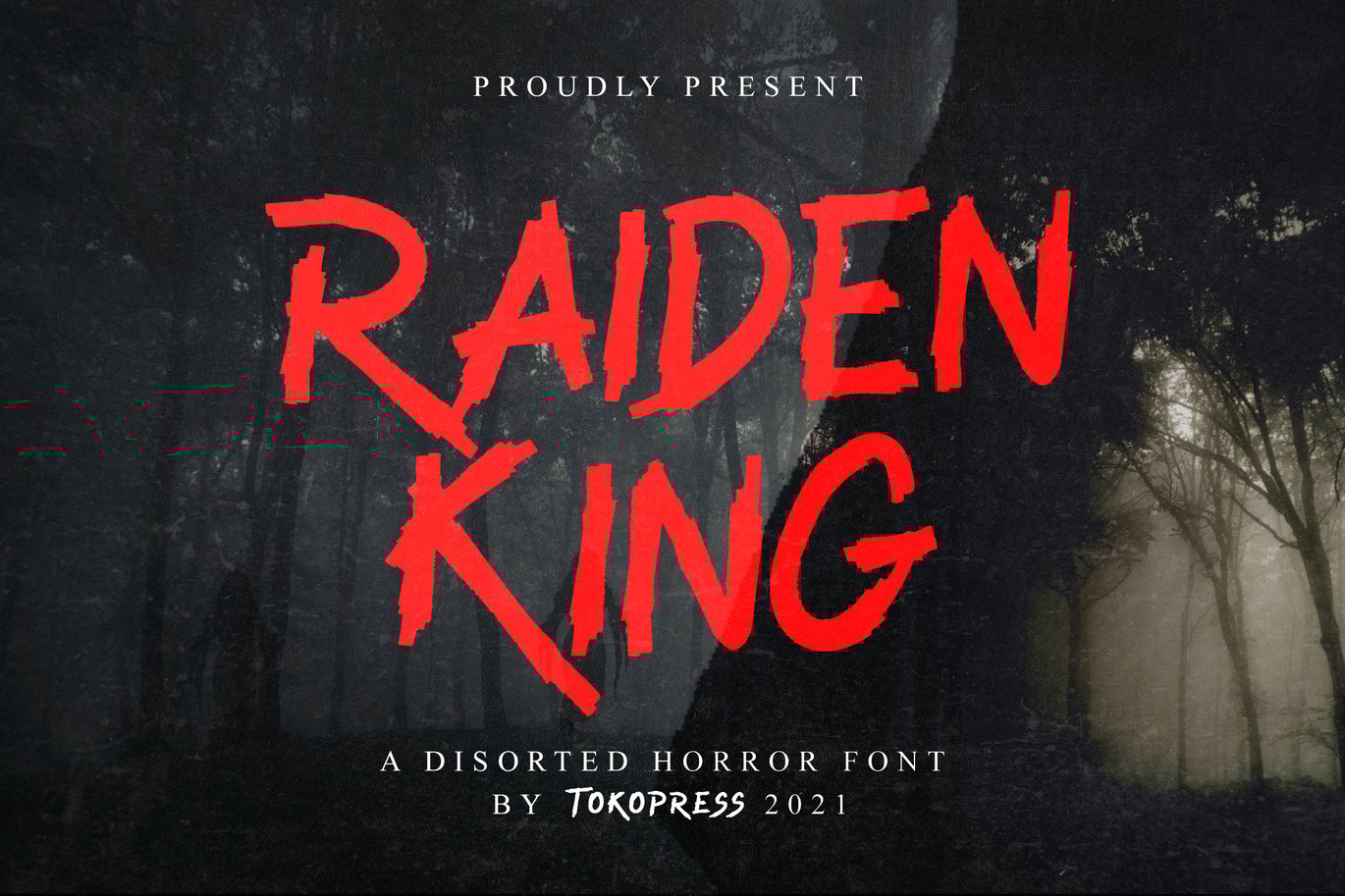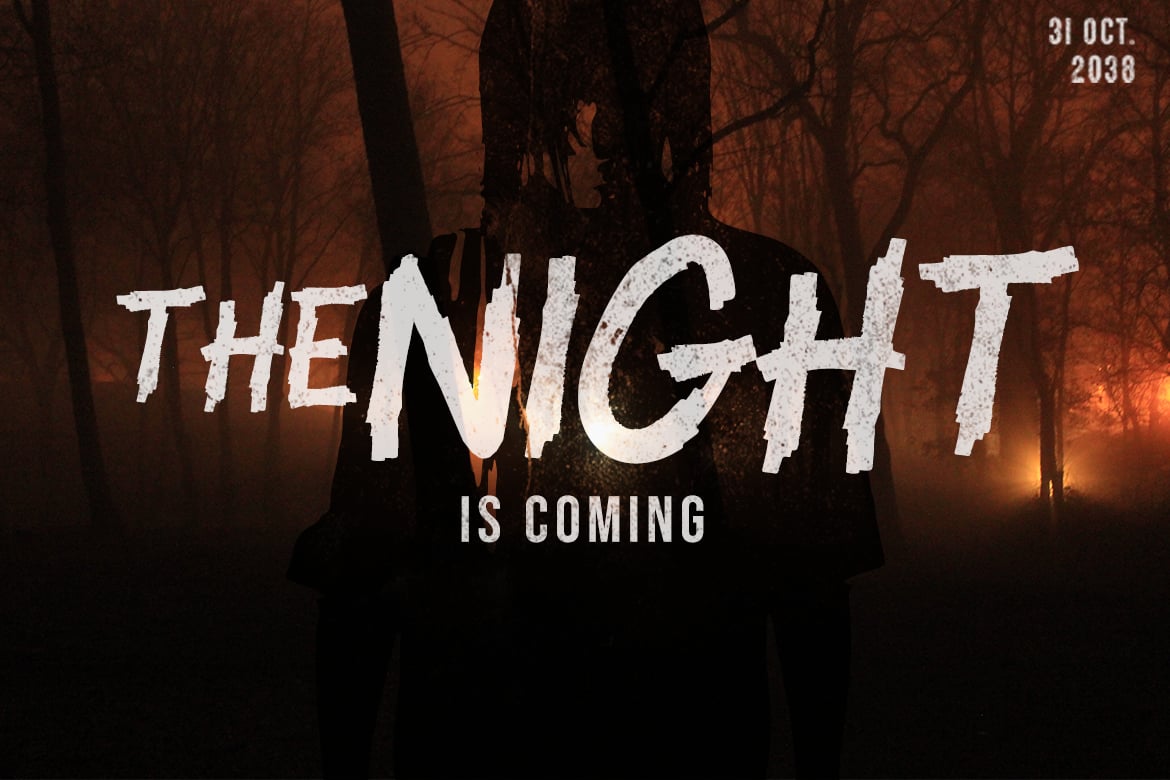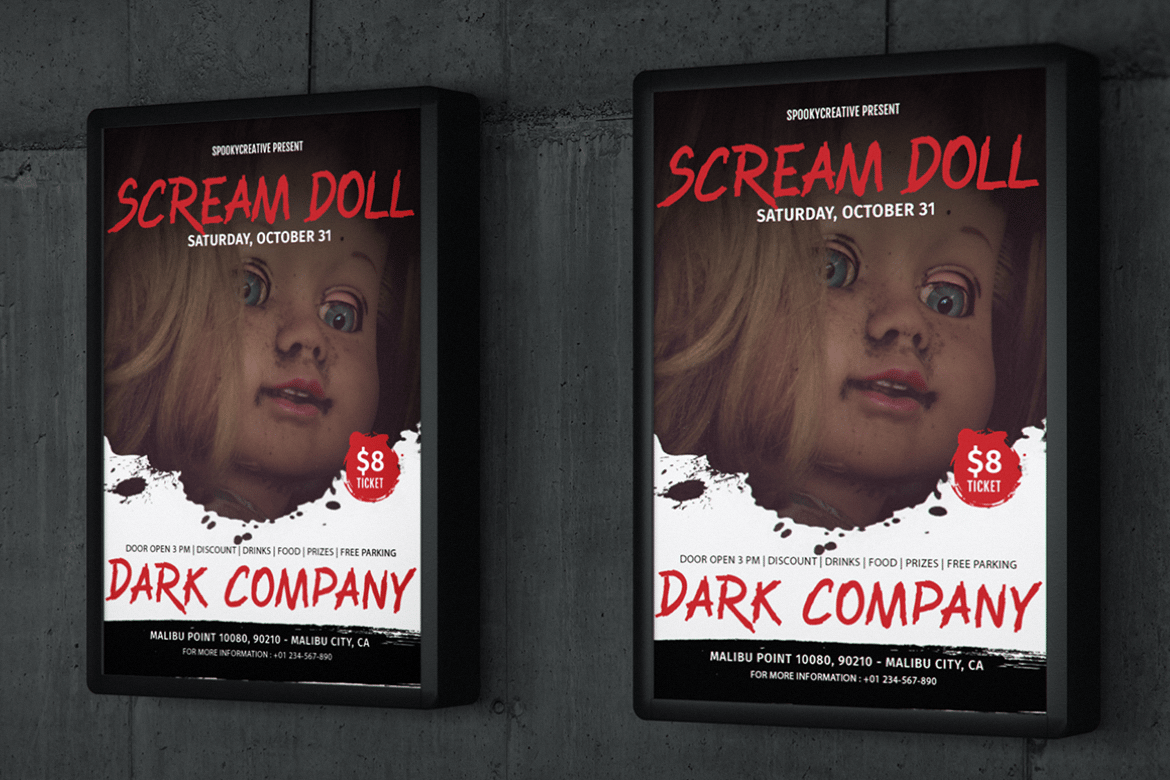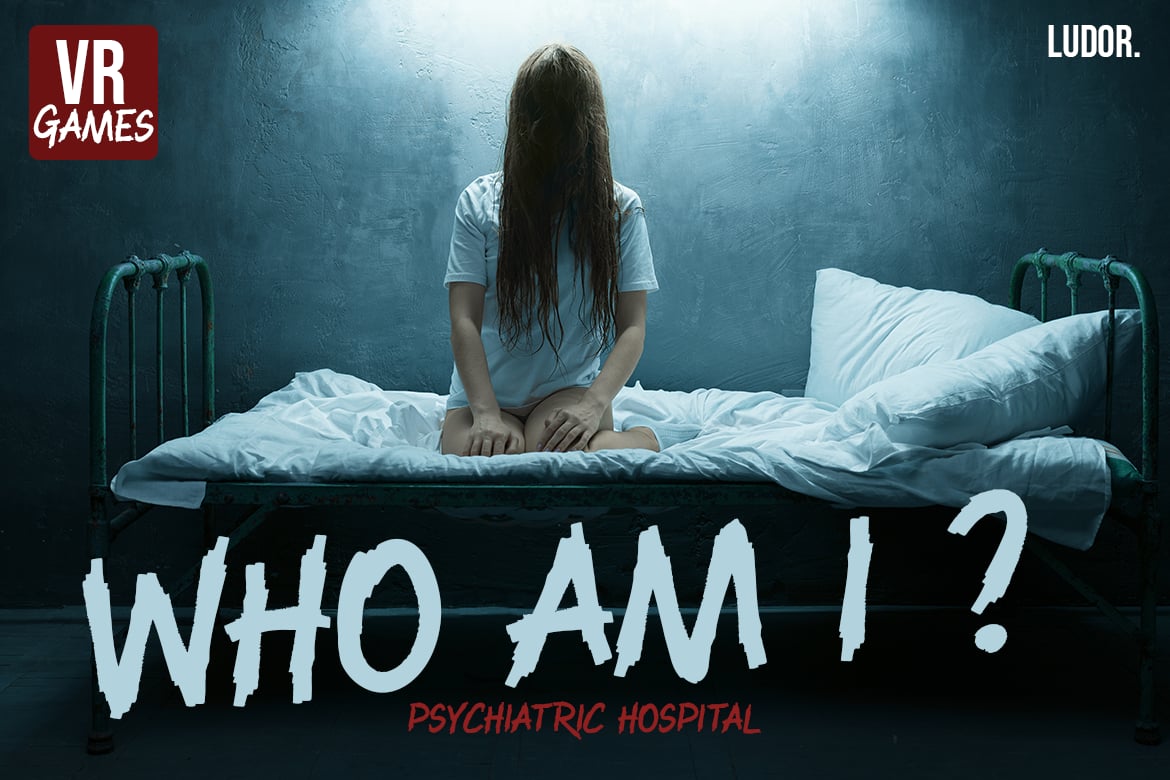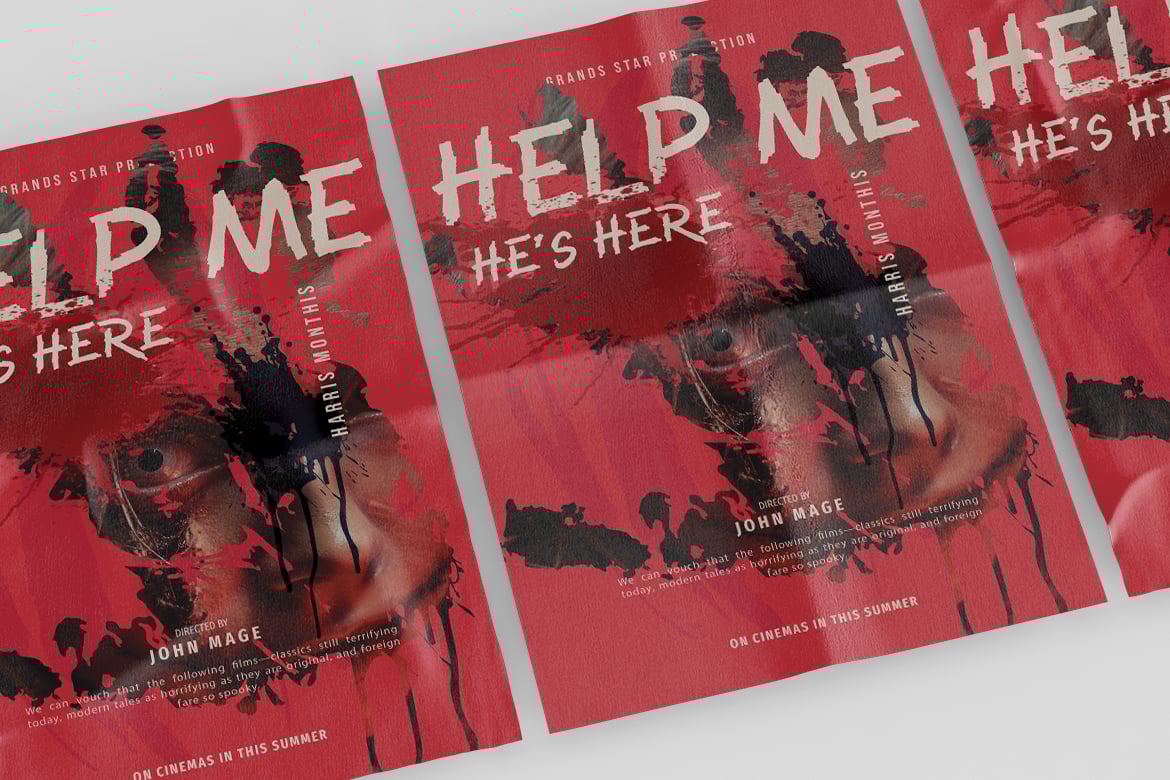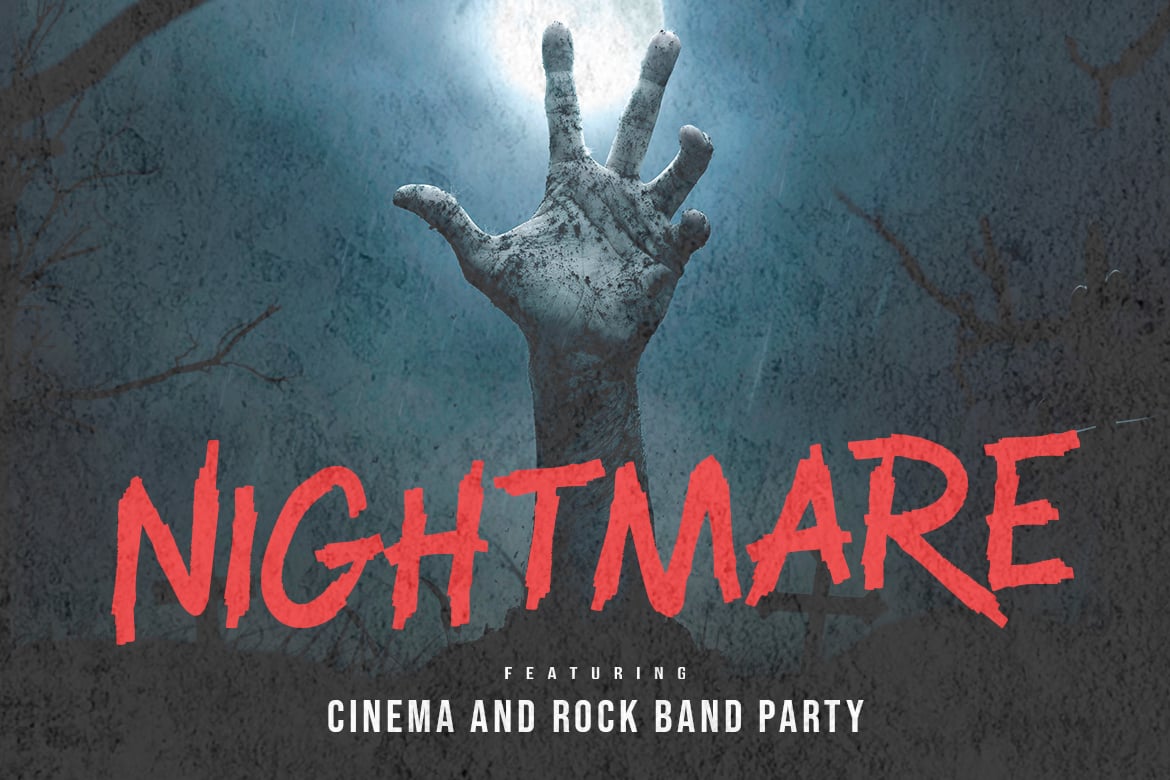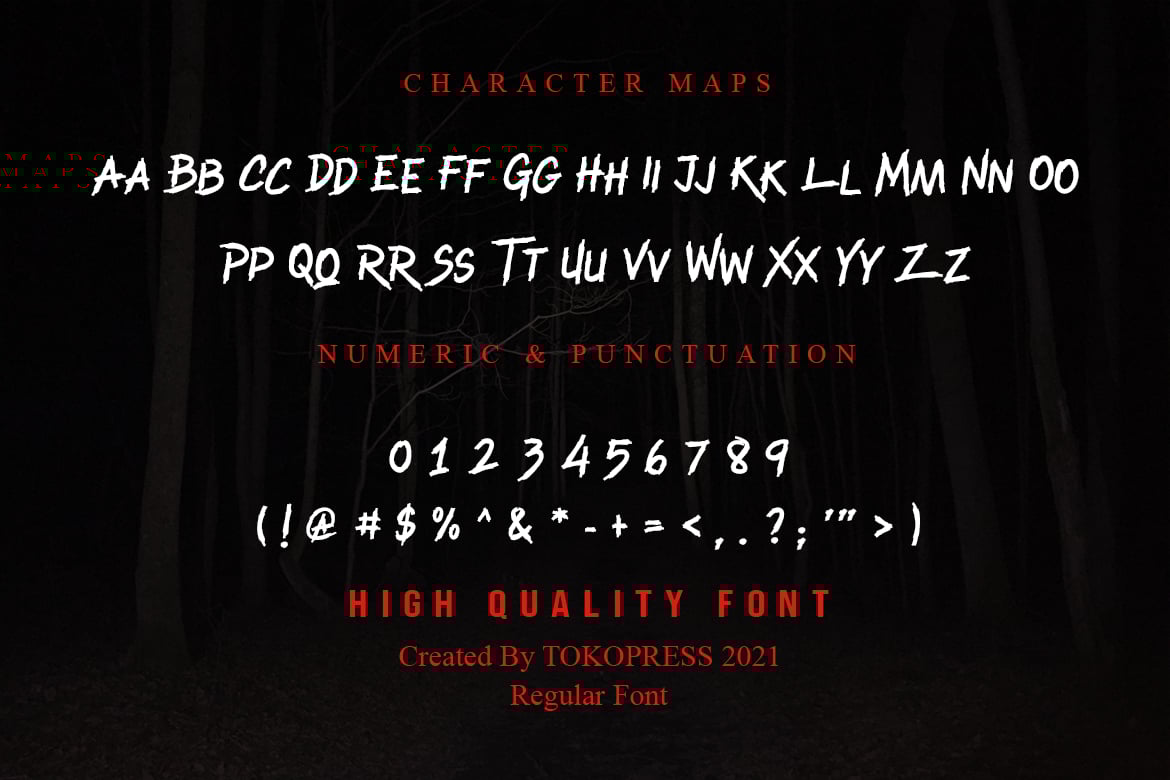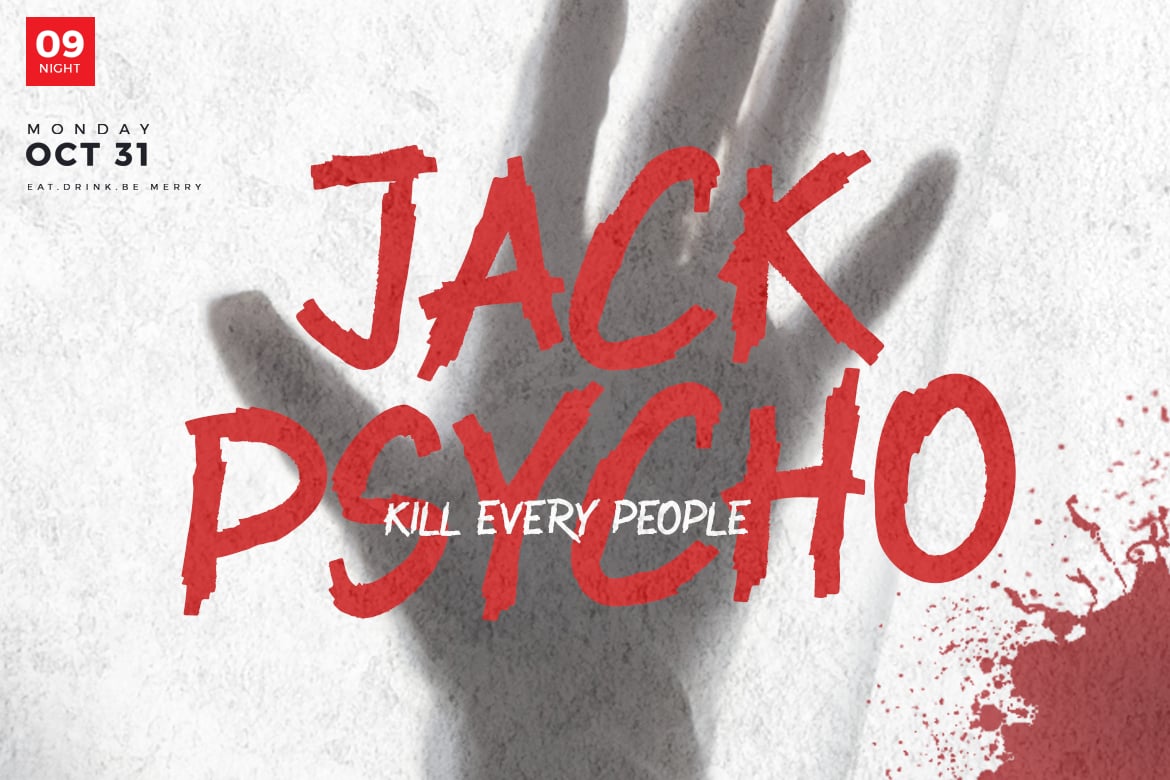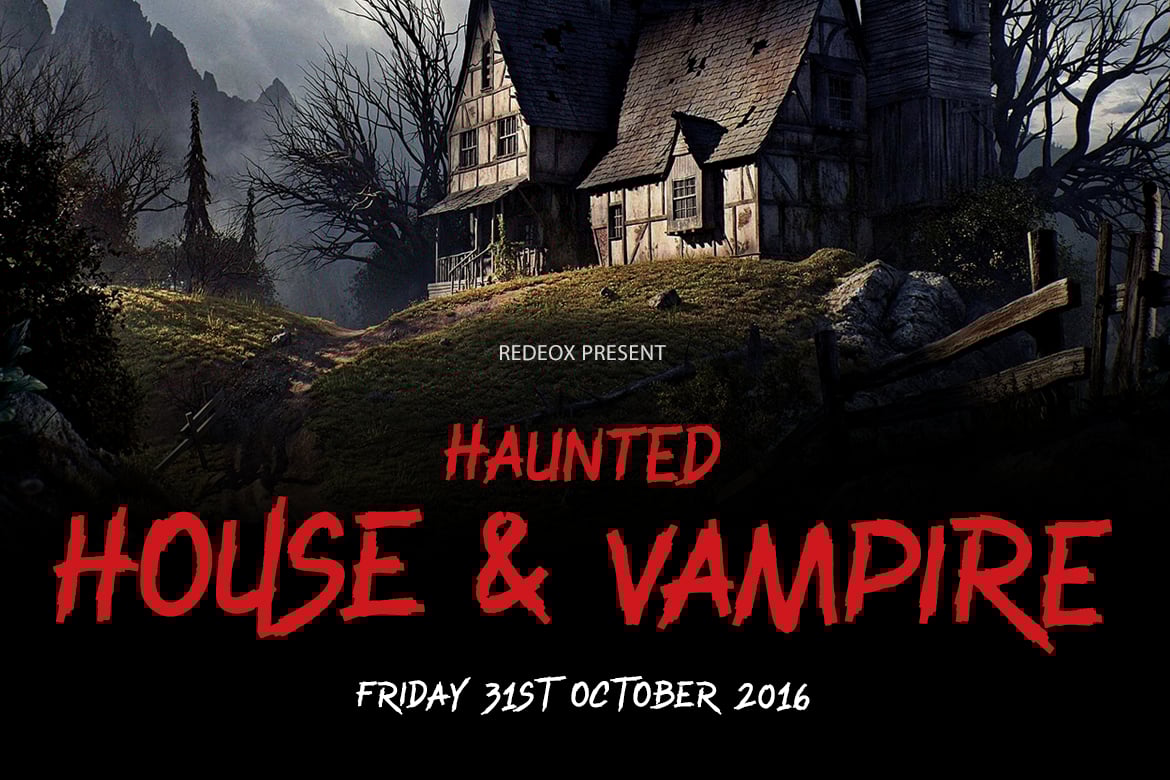
RAIDEN KING – Brush font
Rough, full of ragae, and screaming TERROR and HORROR all over the words it is written with.
Suit perfectly for mystery and horror projects, halloween segmented magazine, poster, movie title, music poster, youtube covers, youtube thumbnails, social media page covers and so on…